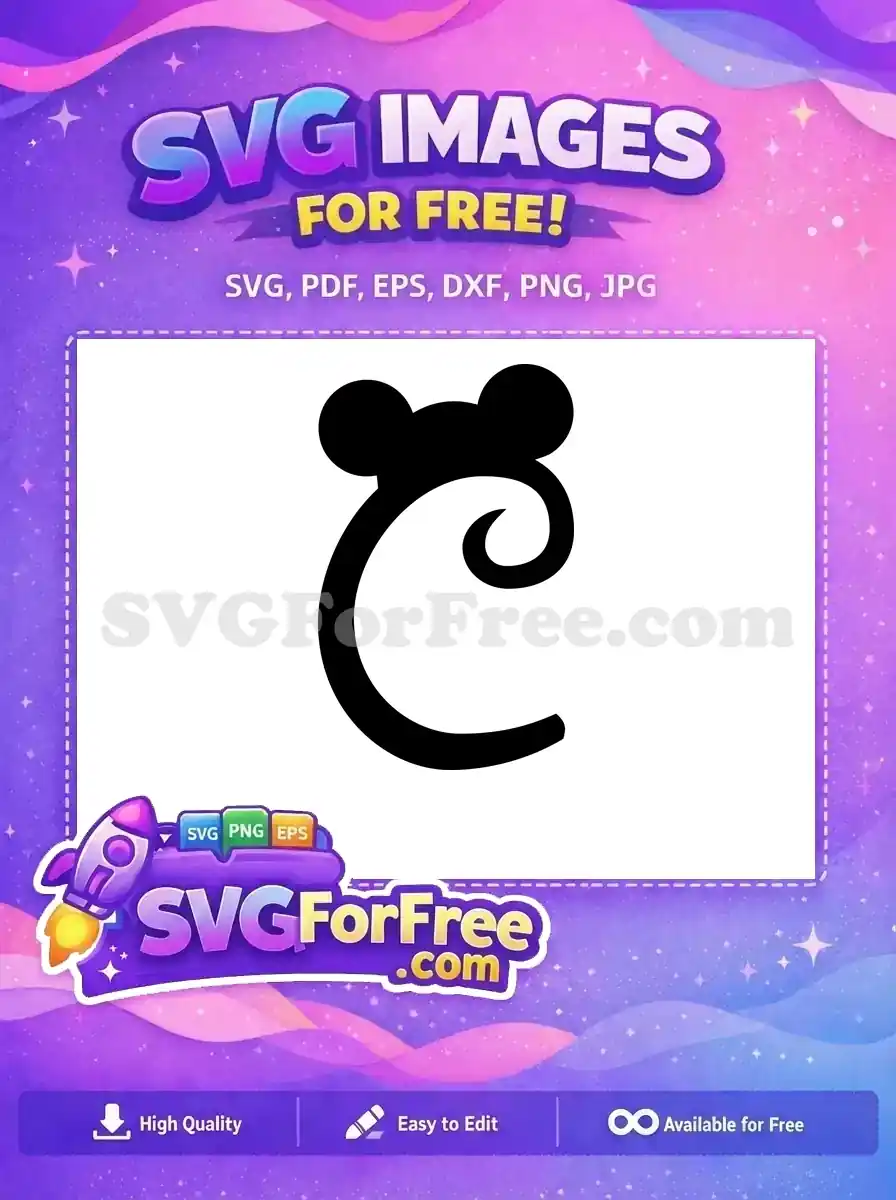
Free Minnie Font Letter C Free Black Silhouette Disney Monogram Free SVG – Instant Download
Letter C featuring a mouse ear silhouette on the top curve, provided as a free vector file.